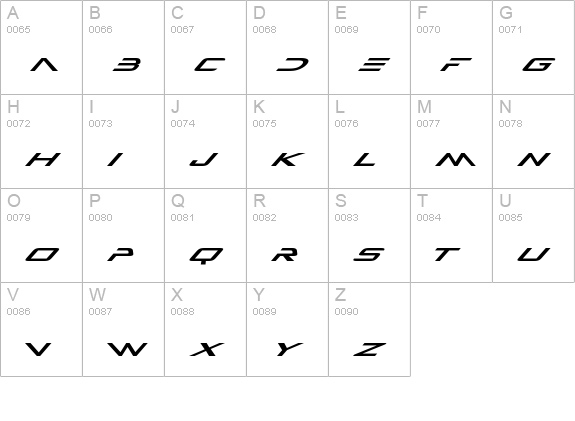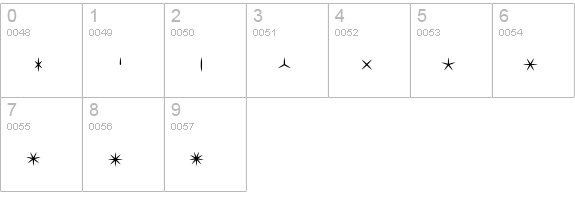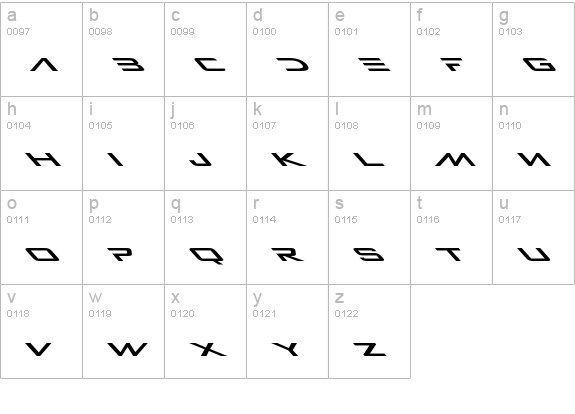
AVP Font Details
Introducing AVP Font, a stunning typeface that effortlessly combines elegance with a touch of modernity. This versatile font is perfect for any project, whether it be a logo design, website, or branding materials. With its clean lines and distinct character, AVP Font adds a unique and sophisticated flair to any creative endeavor. But what sets AVP Font apart from the rest? It's the fact that it's free! That's right, this exceptional font can be freely downloaded at FontsMarket.com. No need to worry about breaking the bank or compromising on quality with this gem. AVP Font offers the best of both worlds, allowing you to elevate your designs without spending a dime. The beauty of AVP Font lies in its versatility. Whether you're looking for a bold and impactful headline or a subtle and refined body text, this font has got you covered. Its carefully crafted letterforms ensure legibility at any size, while its extensive character set enables you to express your creativity to the fullest. With AVP Font, your designs will stand out from the crowd and leave a lasting impression. Its timeless elegance combined with its contemporary edge creates a harmonious balance that captivates the eye. This font is a true game-changer, empowering you to bring your visions to life with style and finesse. So don't miss out on this incredible opportunity to enhance your design arsenal. Download AVP Font for free at FontsMarket.com and unlock a world of endless possibilities. Elevate your projects, captivate your audience, and make a statement with this exceptional font. AVP Font is the epitome of high-quality design that doesn't cost a penny.